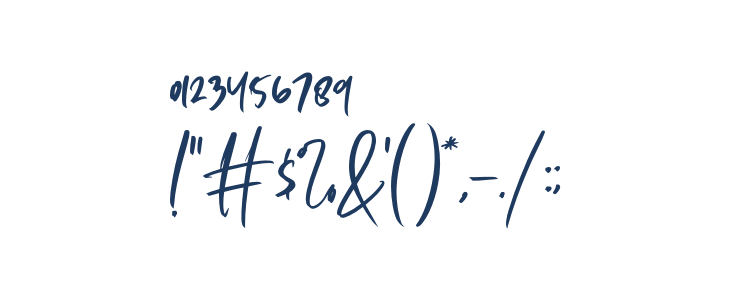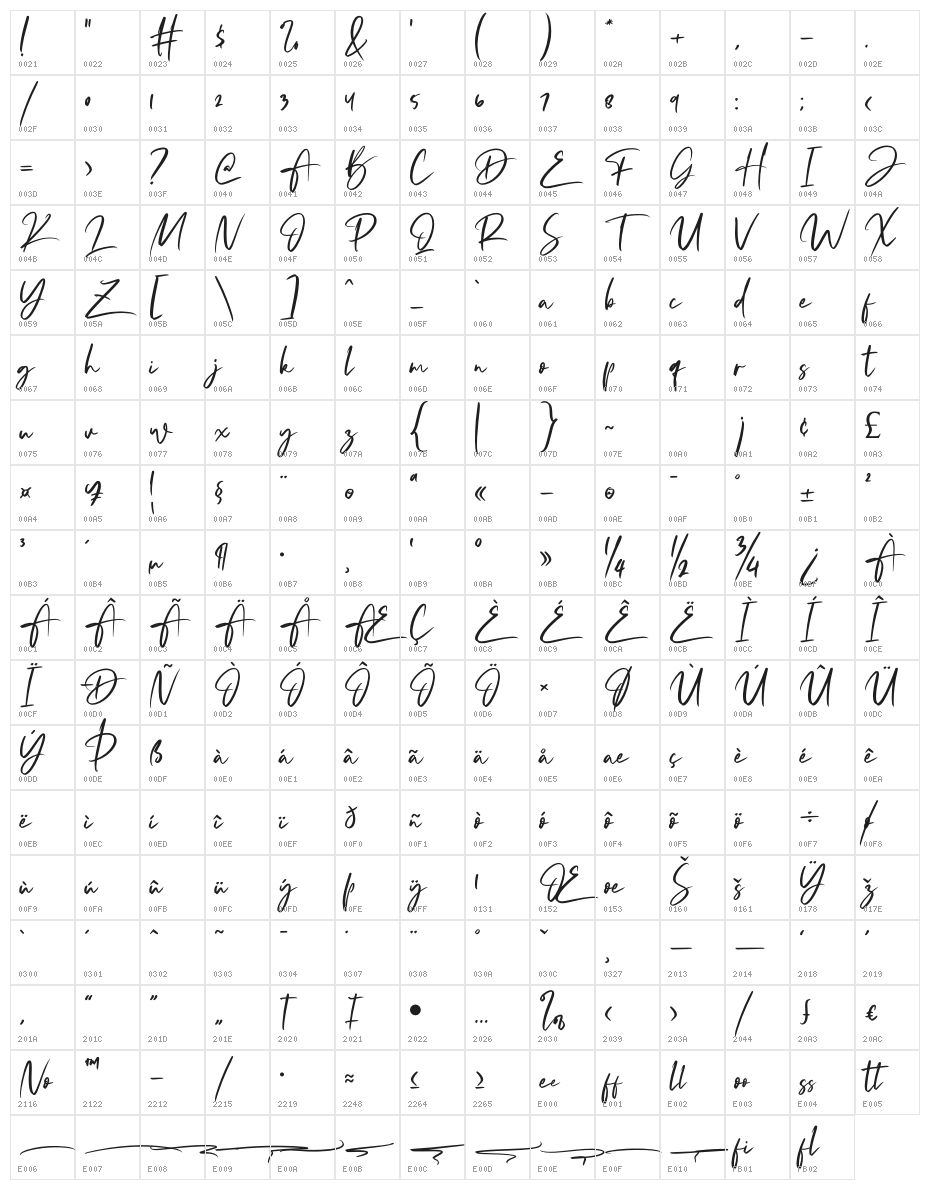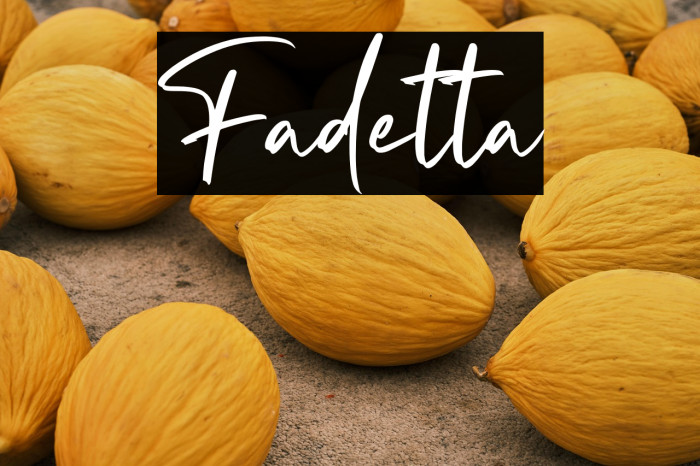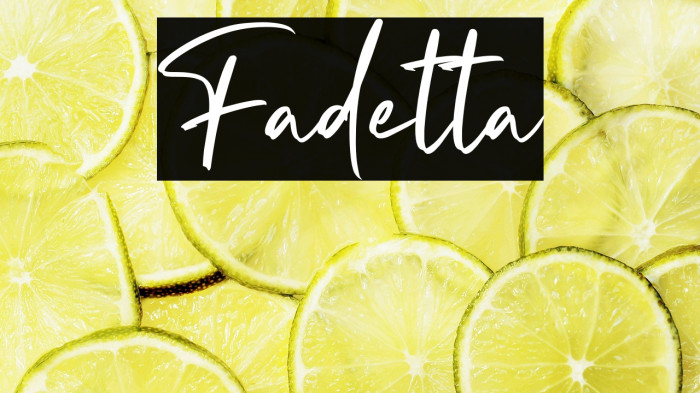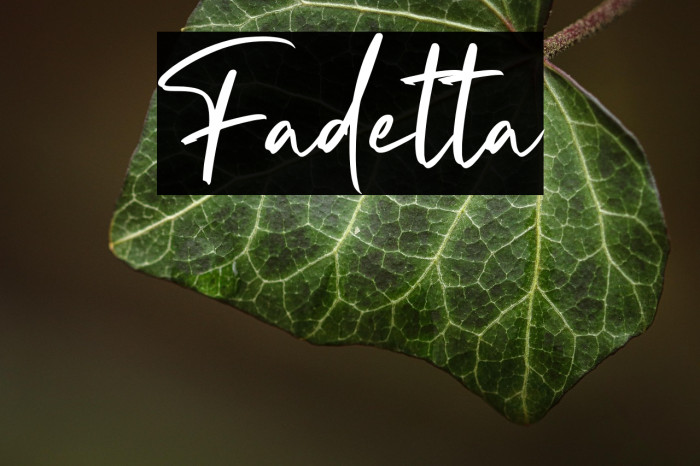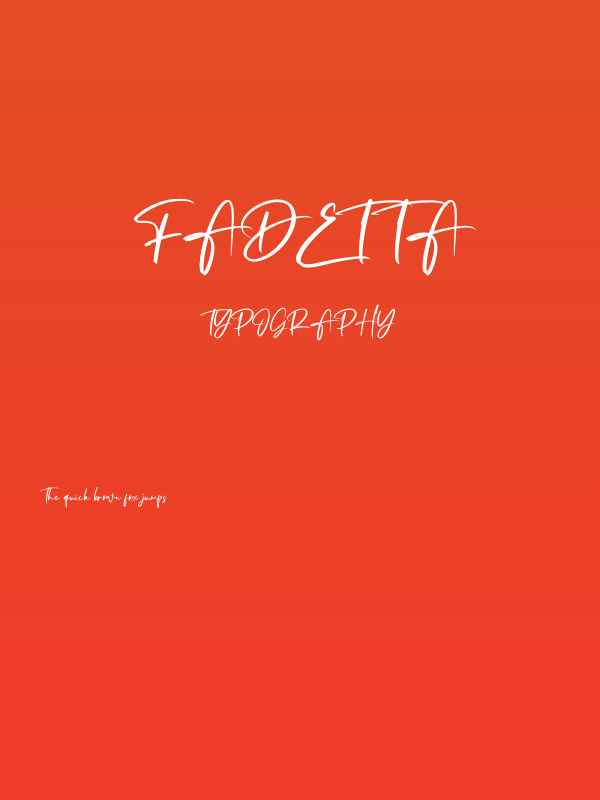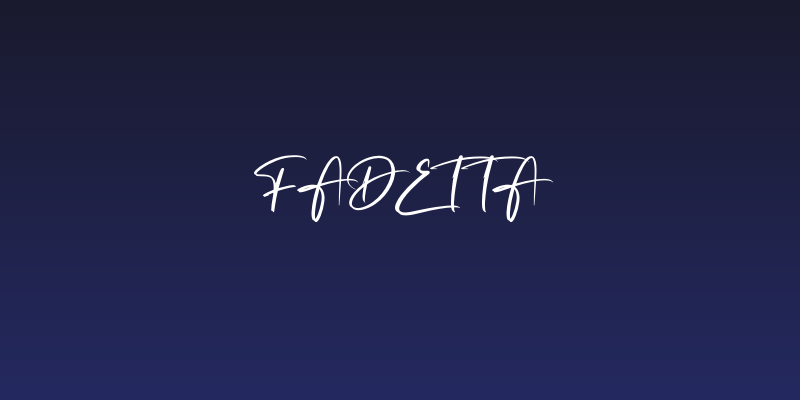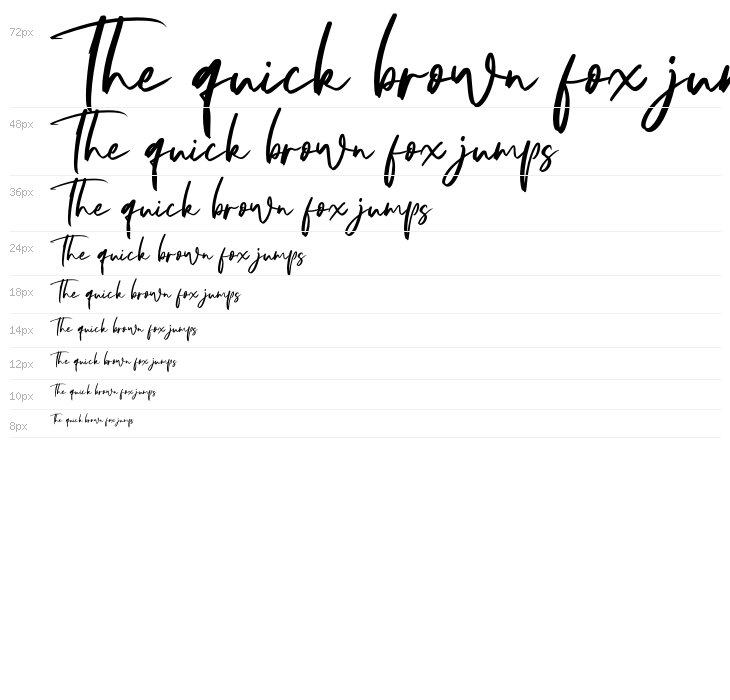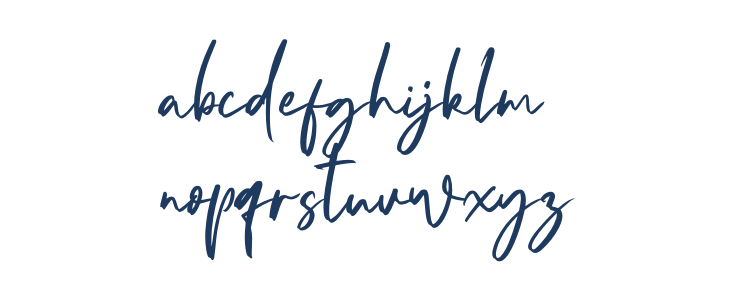
Fadetta Font
Fadetta Description
This font features a dynamic and expressive handwritten style, characterized by fluid strokes and a natural flow. The uppercase letters are bold and slightly slanted, giving a sense of movement and energy. The lowercase letters maintain a consistent style, with some letters featuring unique loops and curves that add personality. The numbers are clear and legible, while the special characters are creatively integrated, maintaining the overall aesthetic. This font exudes a casual yet sophisticated vibe, making it suitable for a variety of creative projects.
| Use Case | Logos, Headlines, Invitations |
| Proposed Projects | Ideal for wedding invitations, greeting cards, branding, and social media graphics. |